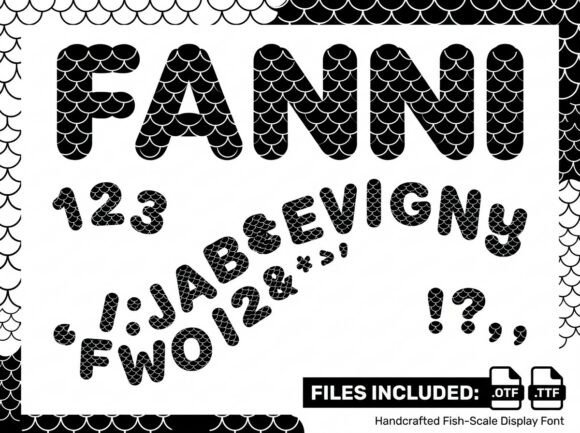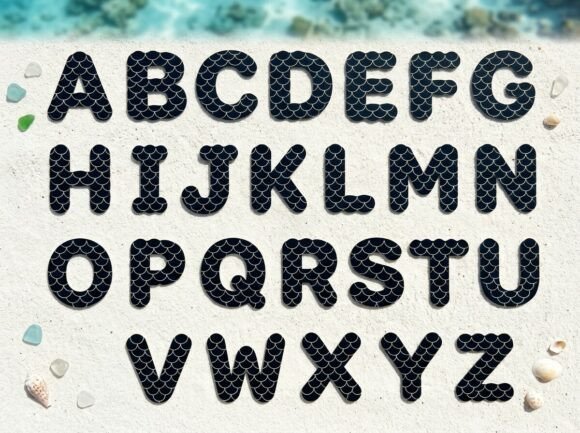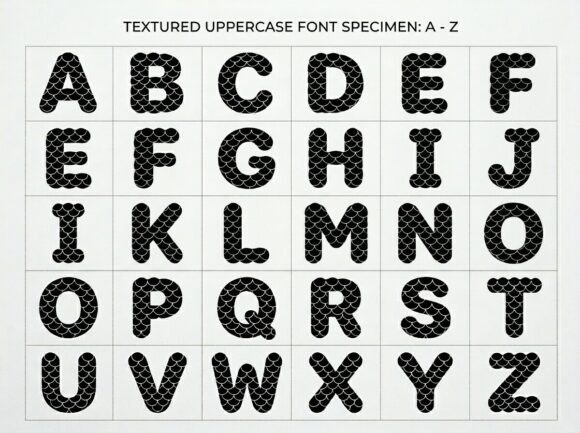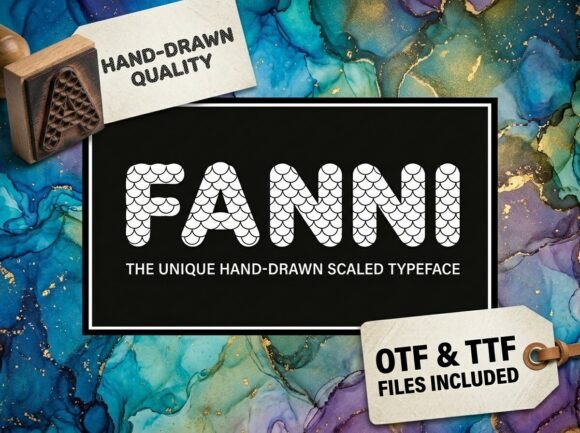
Fanni Font: Dive into the Rhythmic Beauty of the Deep Sea
Are you looking for a unique and captivating font to elevate your design projects? Look no further than Fanni, a handcrafted display font that embodies the essence of the ocean. With its bold, rounded sans-serif letterforms and intricate fish-scale pattern, Fanni is the perfect choice for designers and crafters seeking to add a touch of coastal elegance to their visual storytelling.
The Inspiration Behind Fanni
Fanni is more than just a font – it’s an immersive experience that transports you to the depths of the ocean. The creator of Fanni drew inspiration from the rhythmic beauty of the sea, crafting a typeface that captures the intricate patterns and textures found in nature. The result is a font that exudes a sense of sophistication and artisanal flair, perfect for projects that require a unique and eye-catching approach.
Design Features of Fanni
Fanni’s design features bold, rounded sans-serif letterforms that provide excellent legibility, making it suitable for a wide range of applications. The font’s geometric structure is consistent throughout, ensuring that each letterform is clear and easy to read. But what truly sets Fanni apart is its internal texture – an intricate, overlapping fish-scale pattern that adds a layer of depth and visual interest to each letter.
Perfect for Coastal and Aquatic Themes
Fanni’s oceanic inspiration makes it an ideal choice for design projects that require a coastal or aquatic theme. Whether you’re working on branding for a seafood restaurant, a logo for a coastal boutique, or editorial headers for a maritime-themed publication, Fanni is the perfect font to convey a sense of elegance and sophistication. Additionally, its unique texture and design make it an excellent choice for packaging design, particularly for aquatic products.
Key Benefits of Using Fanni
• Excellent legibility: Fanni’s geometric structure and bold letterforms ensure that your text is easy to read, even at smaller sizes.
• Unique texture: The intricate fish-scale pattern adds a layer of visual interest and sophistication to your designs.
• Coastal elegance: Fanni’s oceanic inspiration and artisanal flair make it perfect for projects that require a touch of coastal sophistication.
• Versatility: Fanni can be used for a wide range of applications, from branding and logos to editorial headers and packaging design.
Tips for Using Fanni Effectively
To get the most out of Fanni, consider the following tips:
• Use it as a display font: Fanni is designed to make a statement, so use it as a display font to add emphasis and visual interest to your designs.
• Experiment with colors: Fanni’s texture and design work well with a range of colors, so don’t be afraid to experiment and find the perfect combination for your project.
• Pair it with a simple font: To create visual contrast, pair Fanni with a simple, sans-serif font for body text.
Fanni is a one-of-a-kind font that offers designers and crafters a unique and captivating way to add a touch of coastal elegance to their visual storytelling. With its bold, rounded letterforms and intricate fish-scale pattern, Fanni is perfect for a wide range of applications, from branding and logos to editorial headers and packaging design. Whether you’re working on a project that requires a touch of sophistication and artisanal flair, Fanni is the perfect choice.